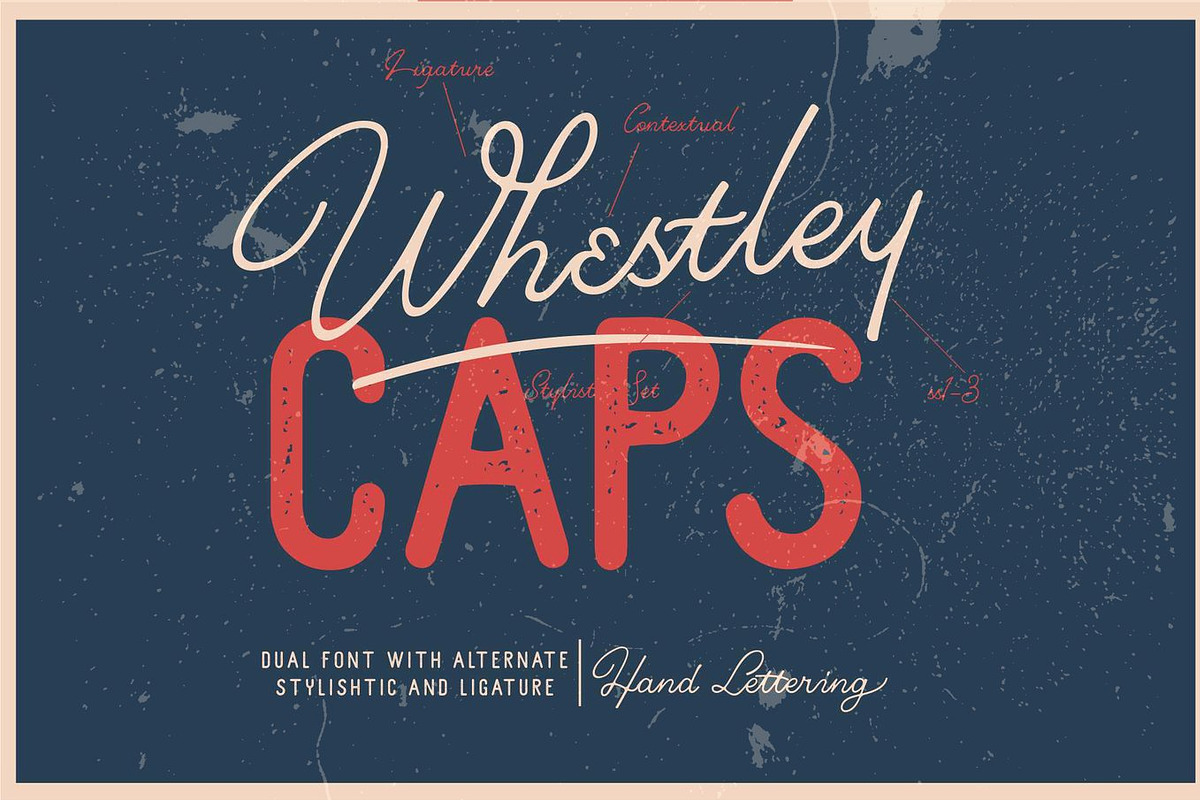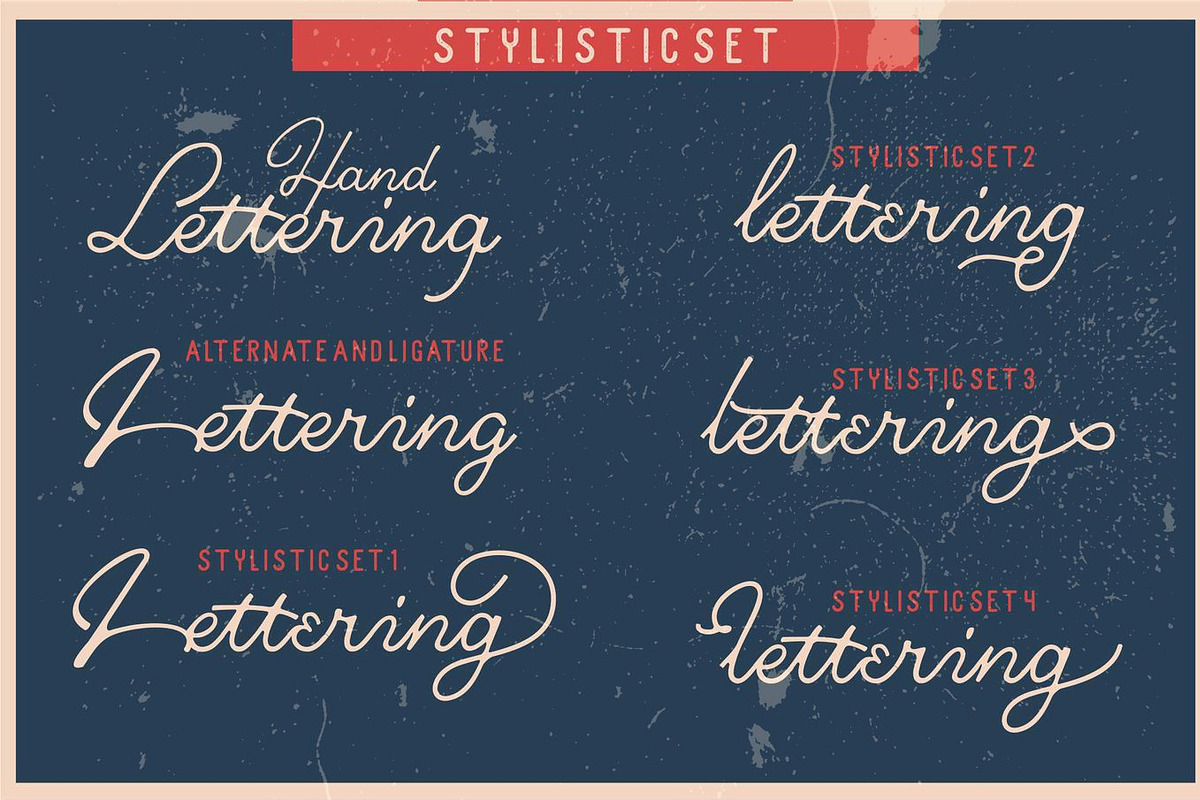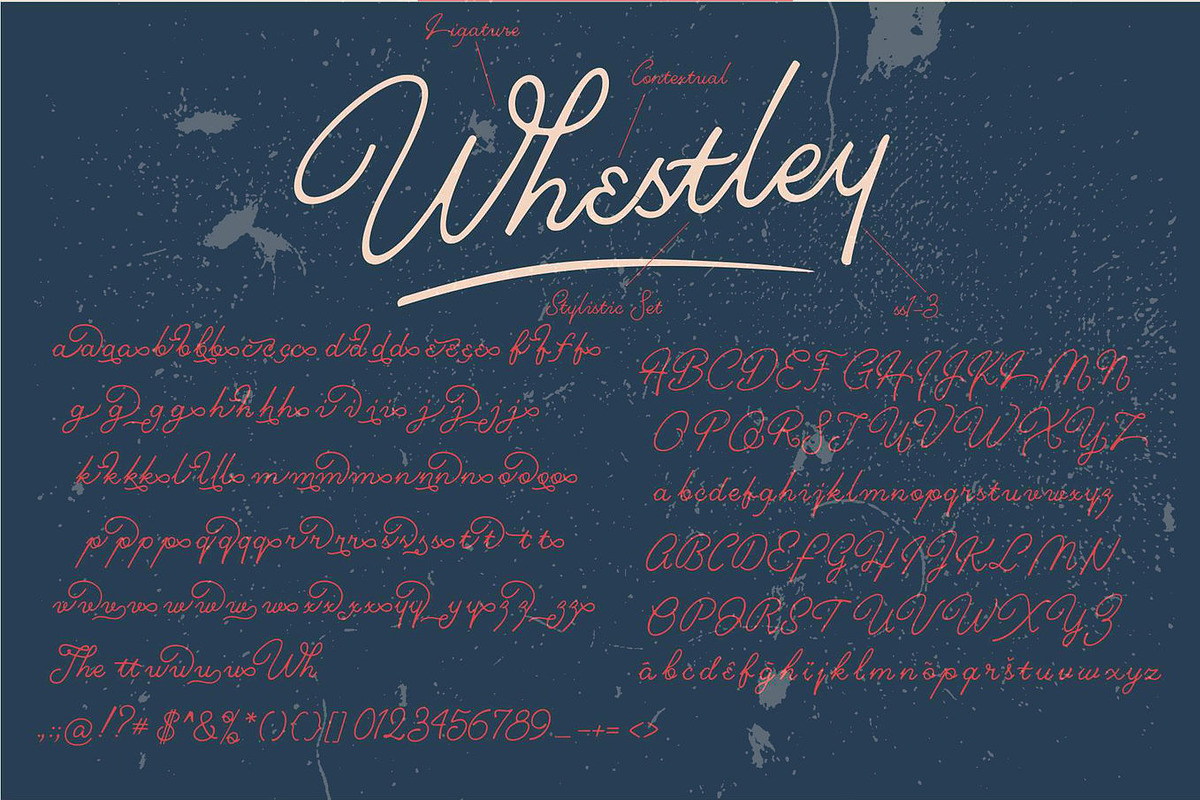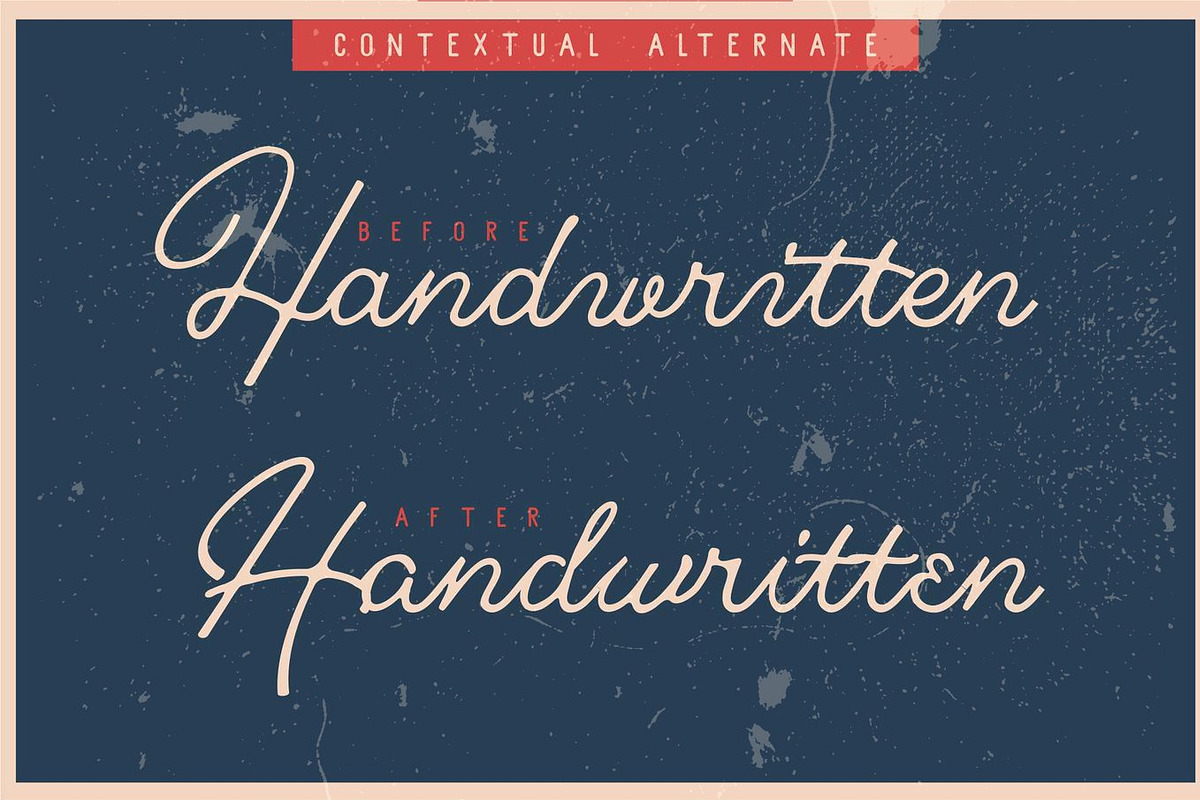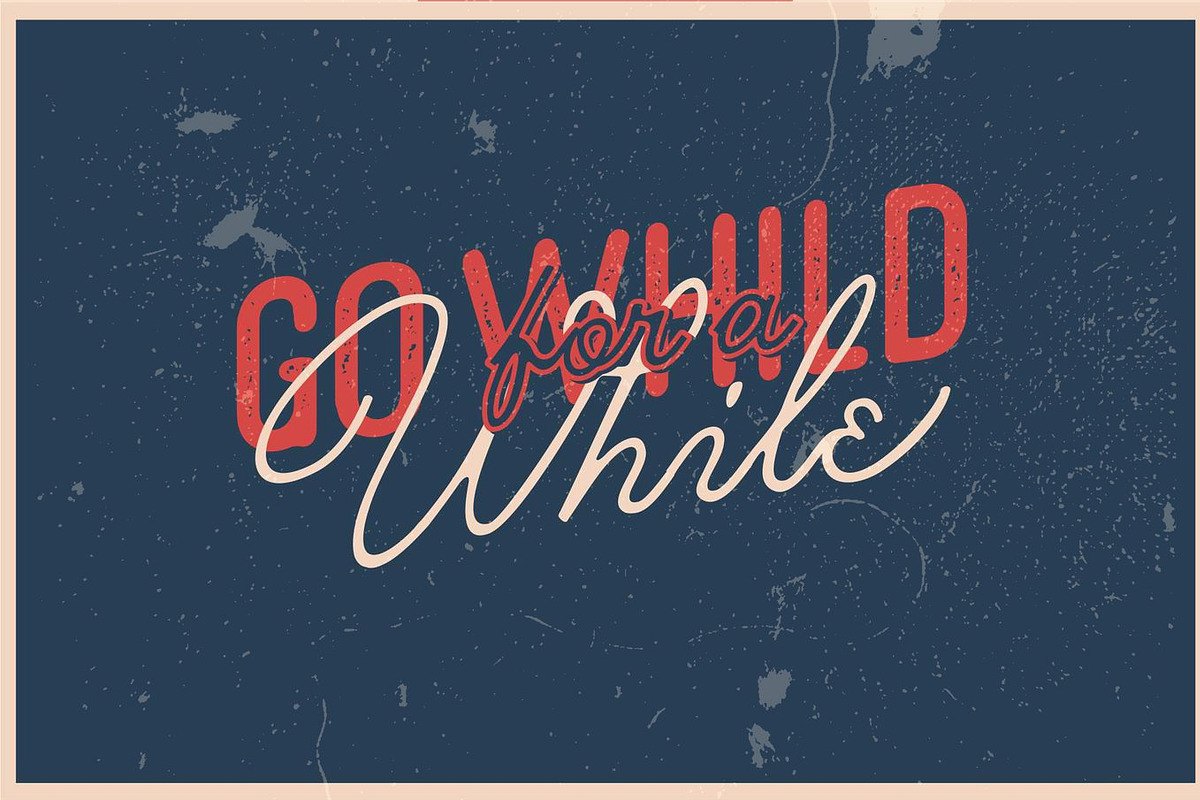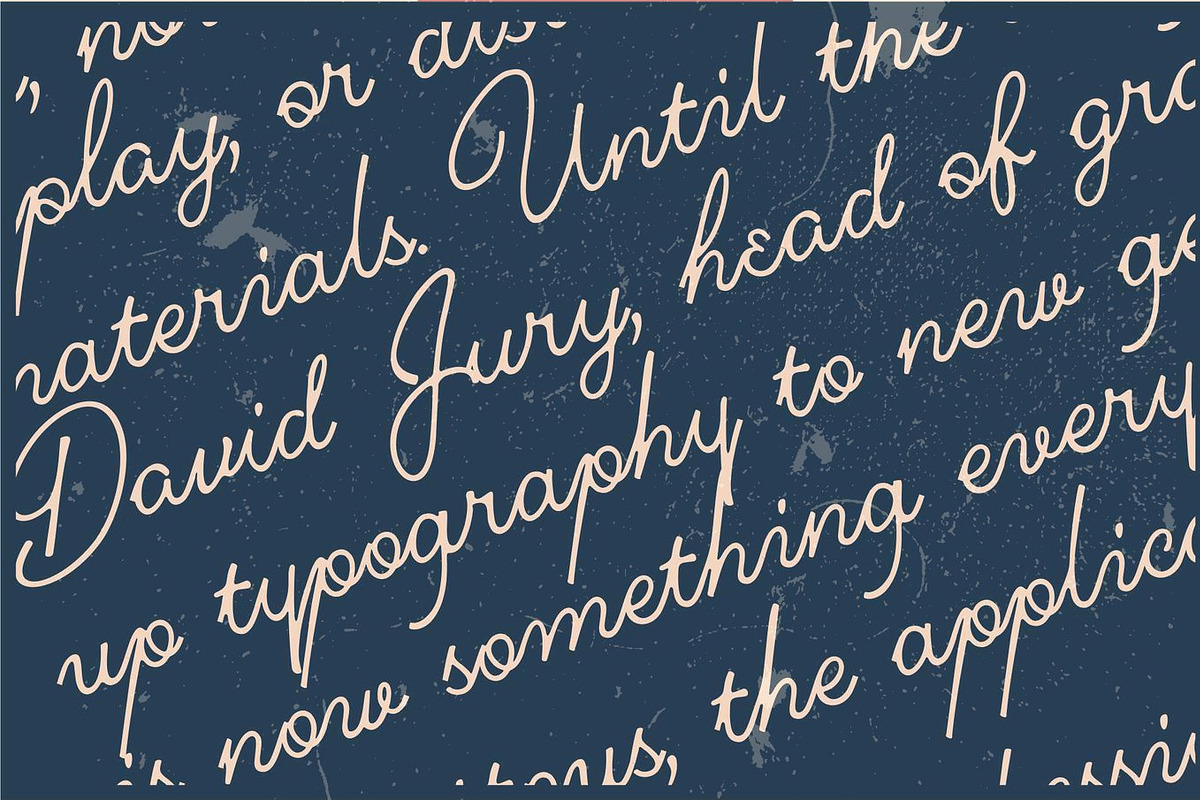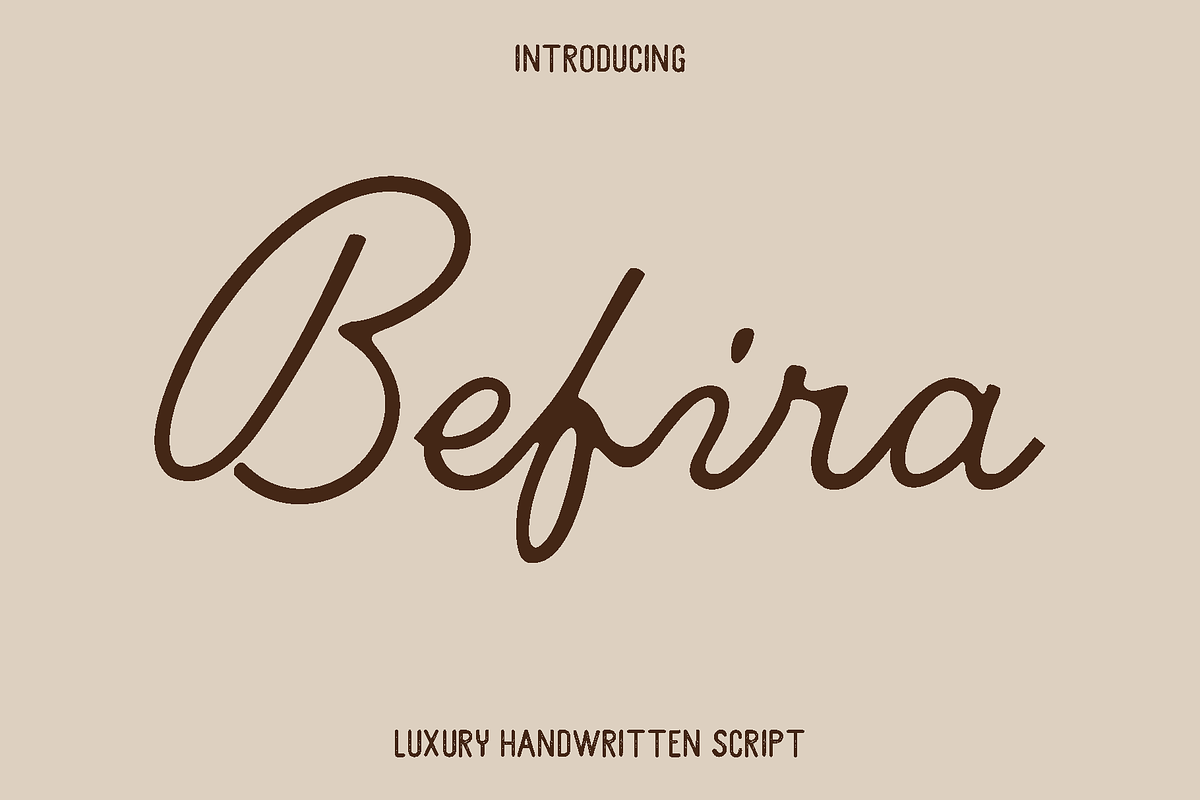
Befira - Luxury Handwritten Script
Befira is a vintage handwritten font duo designed to capture the charm of classic hand lettering with a modern creative twist. Inspired by traditional sign painting and retro typography, Befira brings an authentic hand drawn feel that adds warmth, personality, and artistic expression to your designs. Every stroke is carefully crafted to reflect a natural flow, giving your text a lively and organic appearance.
This font set includes two complementary styles, Befira Regular and Befira Caps, allowing you to mix and match for more dynamic and eye catching compositions. Befira shines in projects that need a nostalgic and handcrafted touch, such as branding, logos, packaging, posters, apparel design, social media graphics, and vintage themed artwork. Its expressive character makes it perfect for creating designs that feel personal, creative, and full of life.
Befira delivers both style and flexibility. With its alternates, stylistic ligatures, and functional characters, you can easily create unique lettering combinations that enhance your visual storytelling. Whether you are designing for print or digital use, Befira adds a distinctive handcrafted nuance that makes your work stand out with authenticity and charm.
Befira Font Features:
• Handwritten vintage style characters
• Two styles included: Befira Regular and Befira Caps
• Alternates and stylistic ligatures
• Uppercase and lowercase
• Numerals and functional characters
• OpenType features